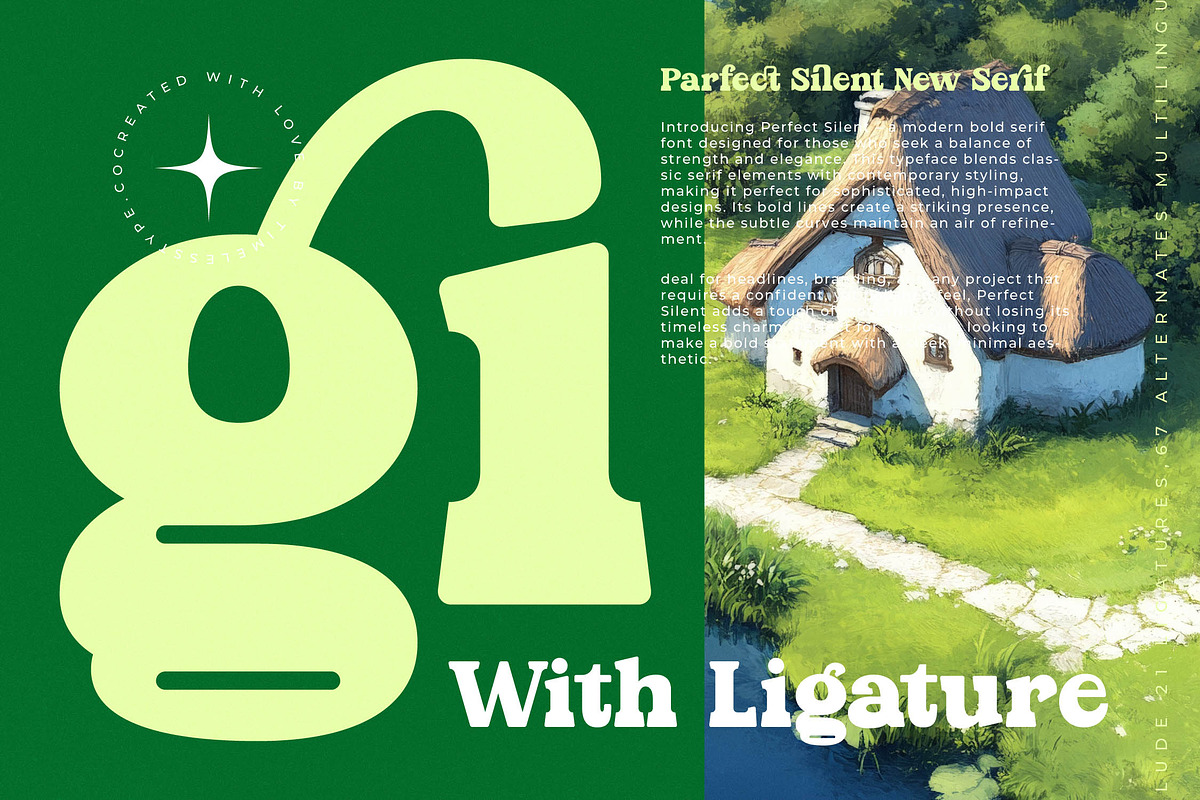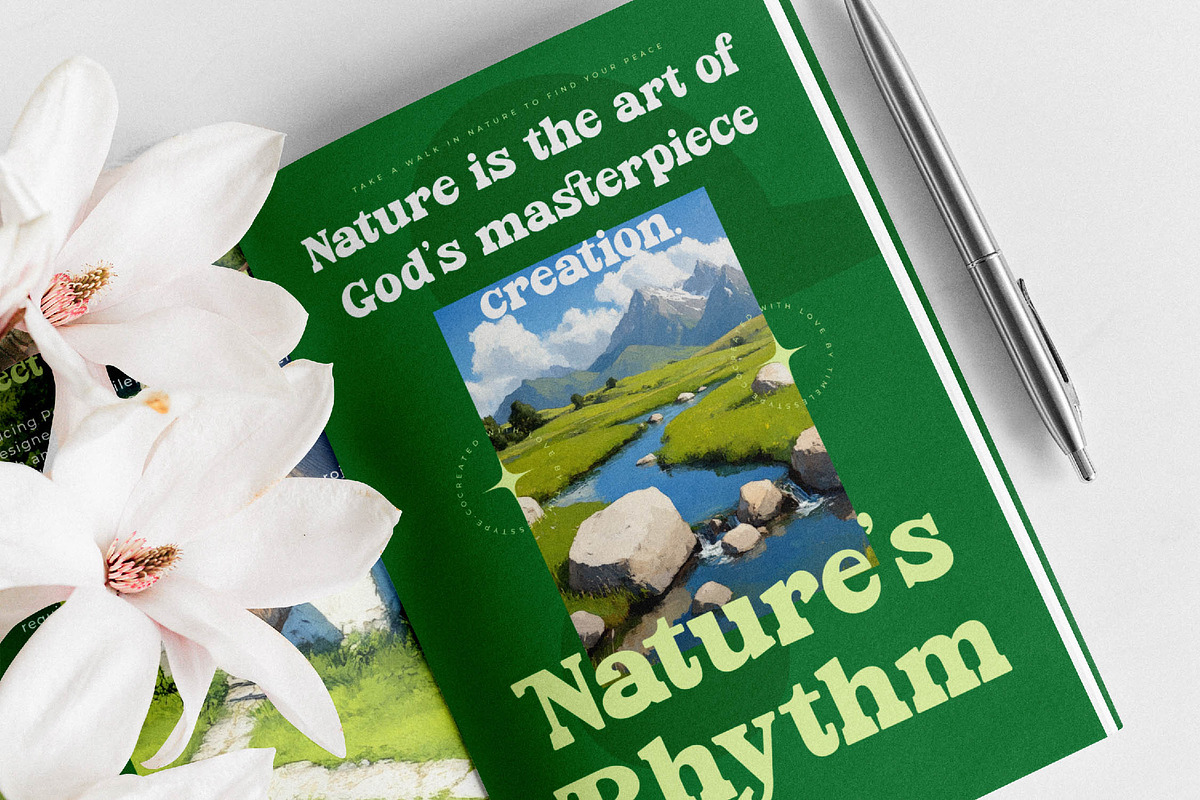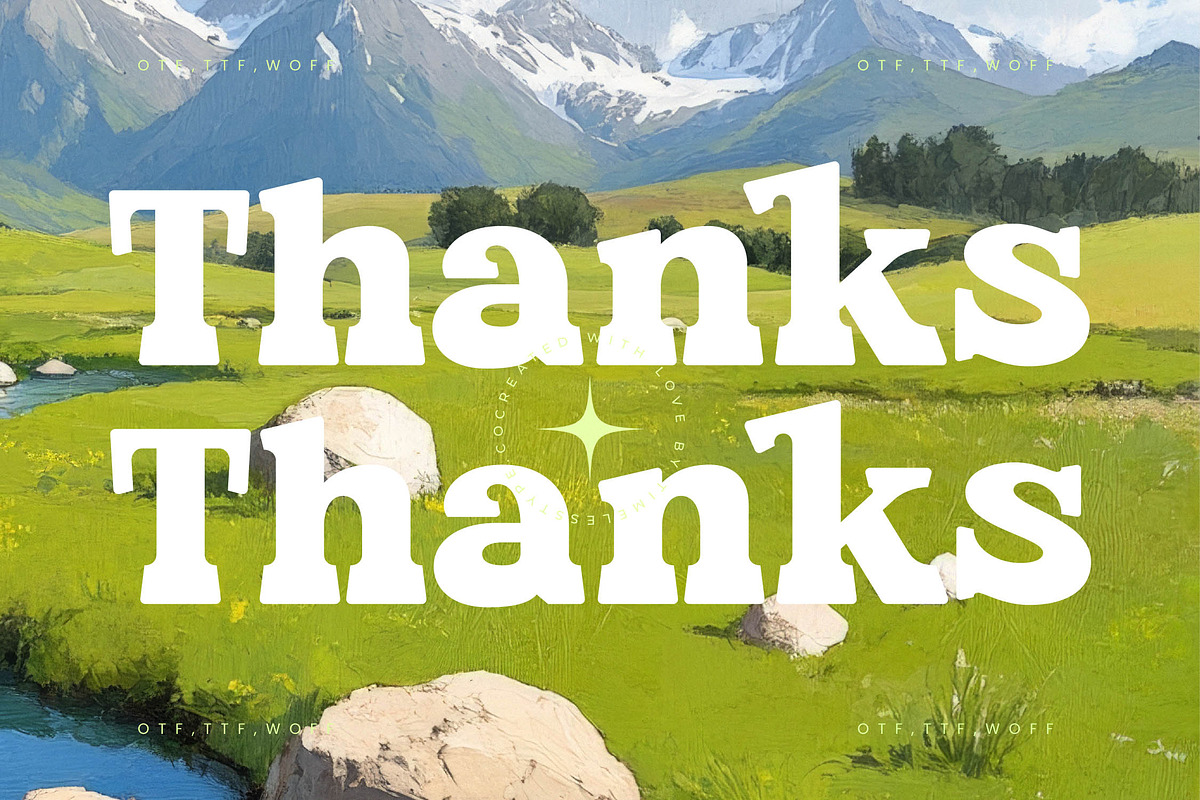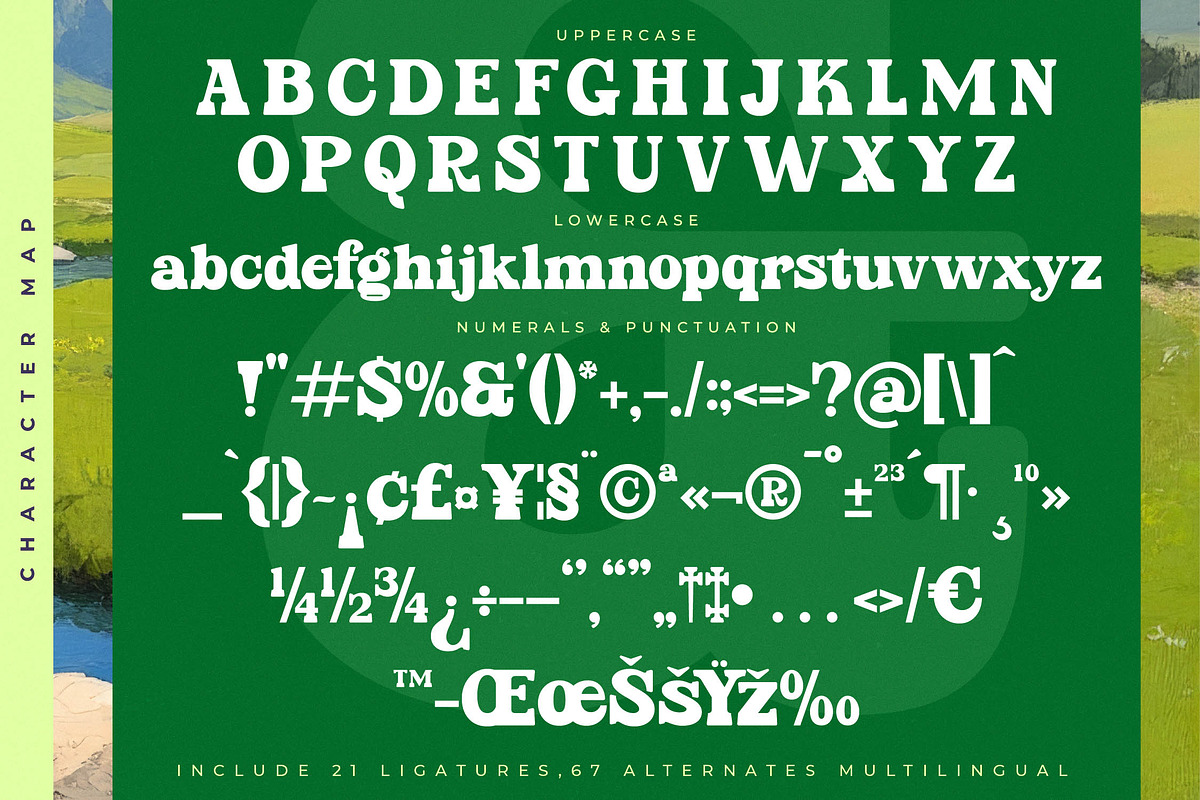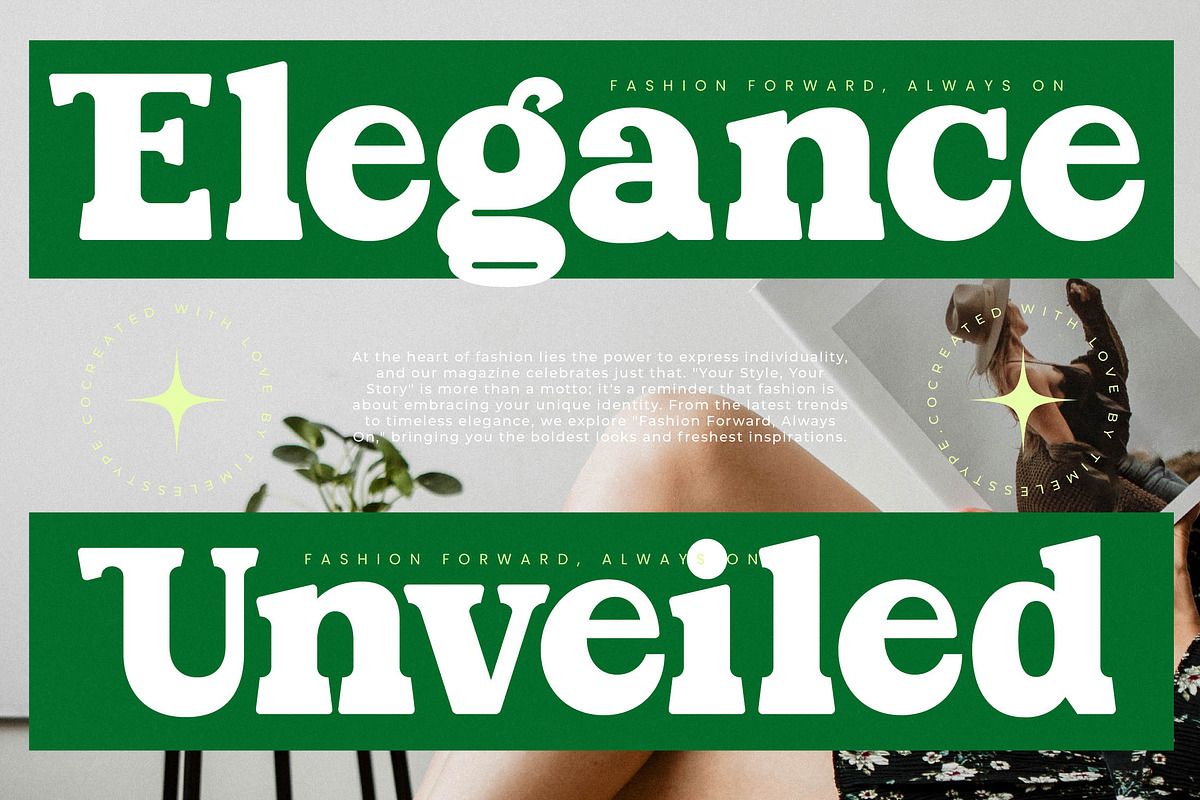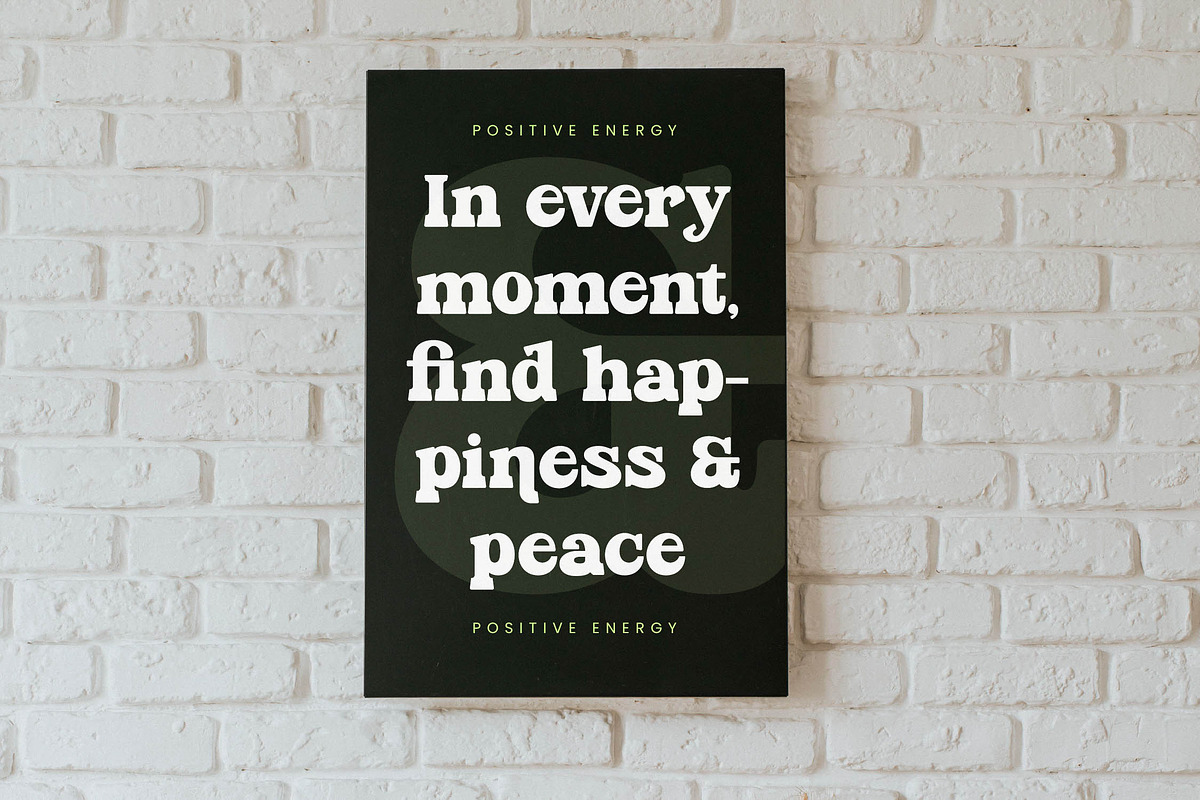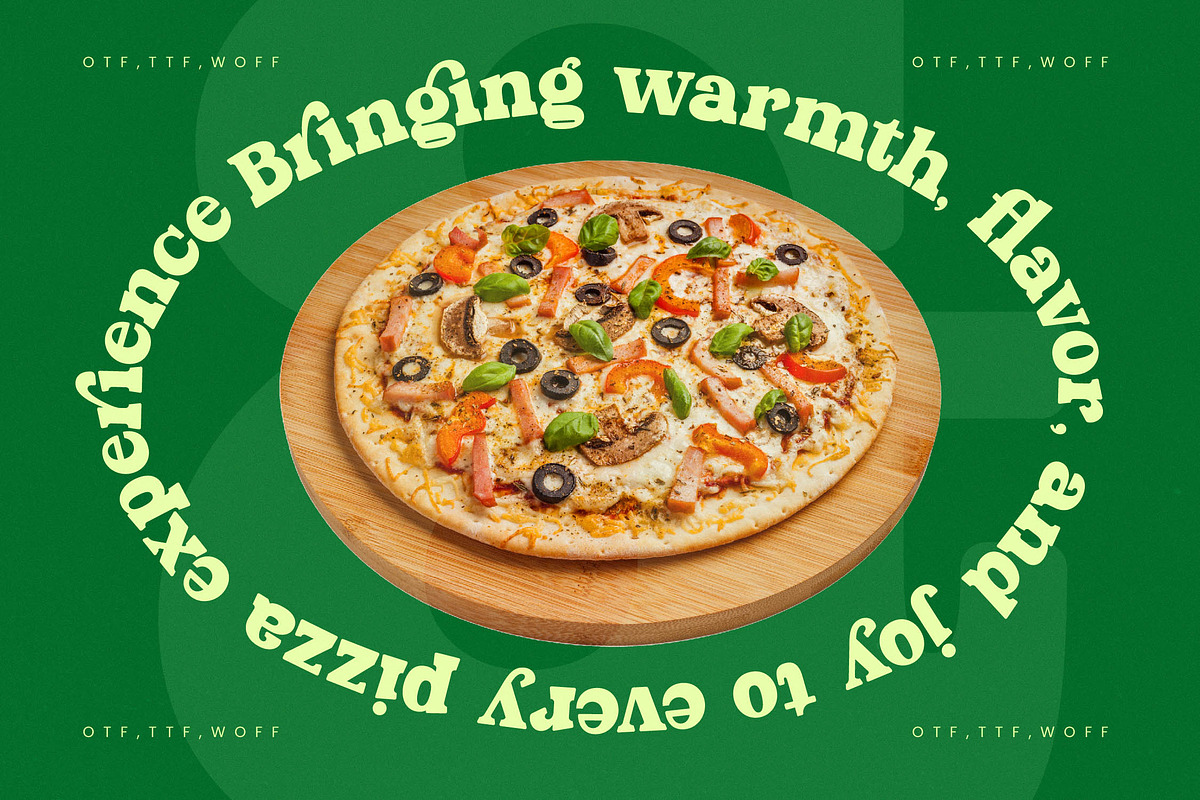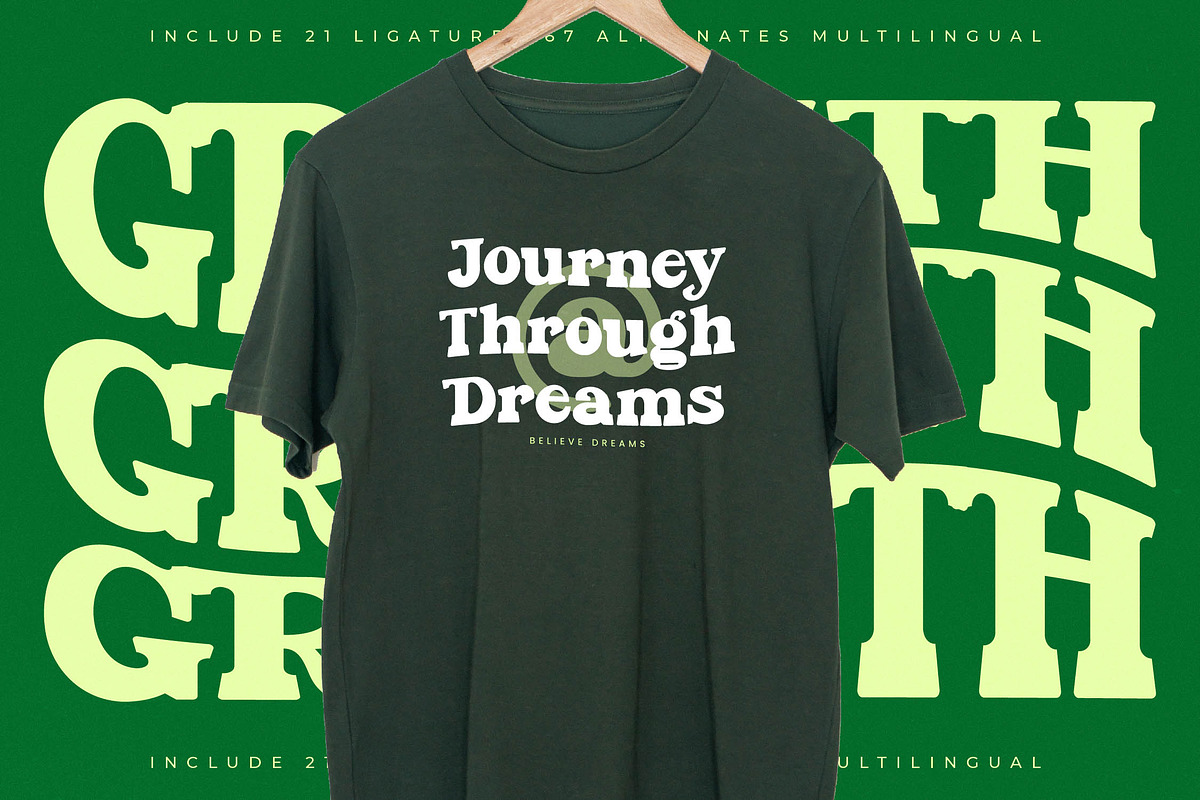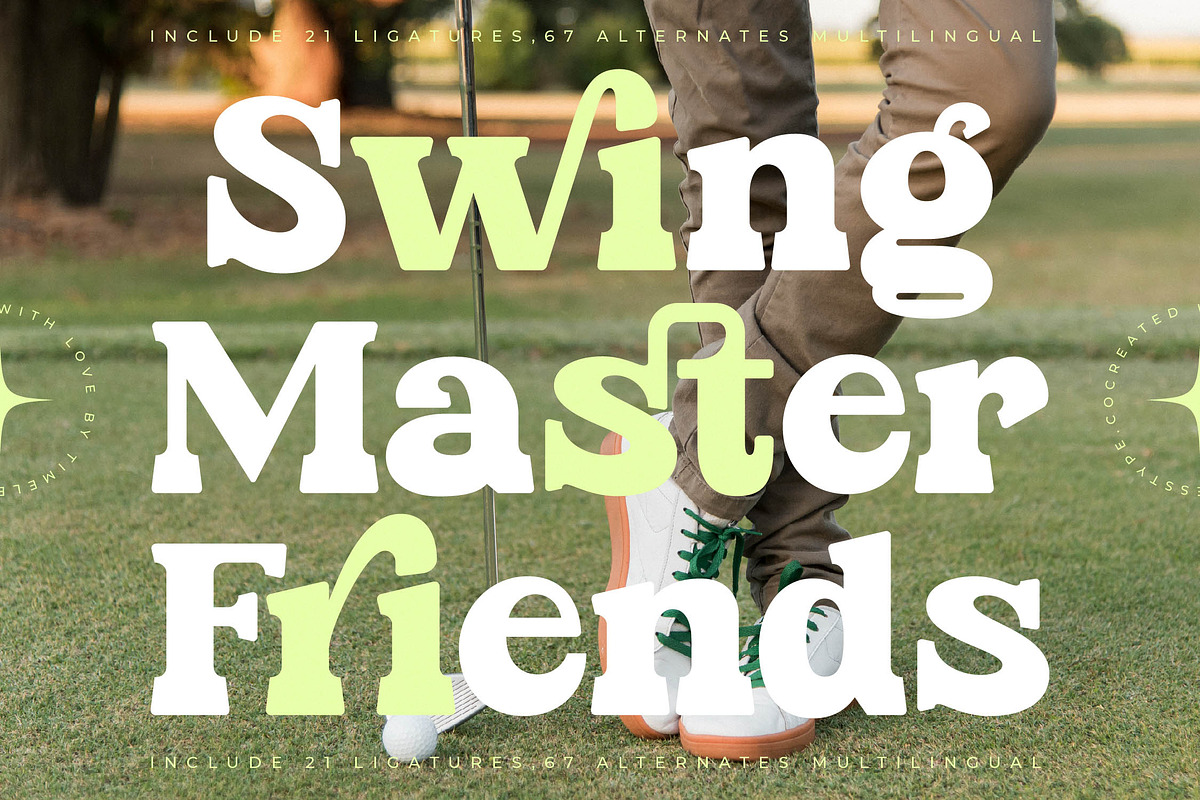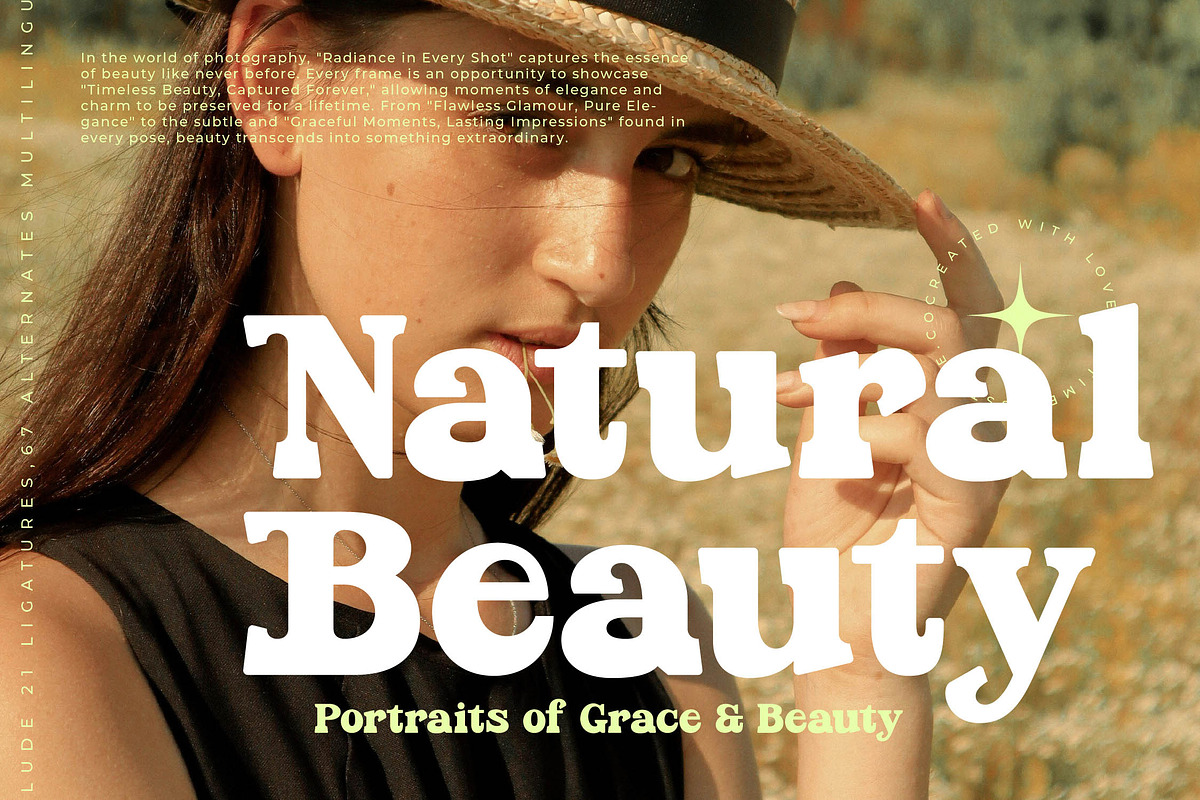
Parfect Silent Modern Bold Serif
Step into a world where visual silence speaks volumes with the striking presence of Parfect Silent. This typeface captures a unique balance between bold assertiveness and refined grace, making every word an editorial masterpiece.
Drawing inspiration from the serene power of alpine landscapes and the quiet strength of modern architecture, this font was crafted to evoke a sense of timelessness. It bridges the gap between traditional serif structures and the avant-garde spirit of contemporary design.
The personality of this typeface is defined by its modern serif display qualities and luxury typography appeal, ensuring your message is delivered with maximum branding impact. Its high-contrast serif strokes provide a rhythmic flow that transforms standard text into an evocative editorial font suitable for high-end narratives.
Aligned perfectly with the current modern serif trend, this typeface is designed for creators who demand character-driven typography that stands out in a crowded market. It meets the rising demand for editorial display fonts that offer both nostalgia and a forward-thinking aesthetic.
This versatile tool is the ultimate choice for high-impact logo design and comprehensive branding projects that require a touch of sophistication. From high-fashion editorial layouts and luxury packaging to bespoke wedding invitations and fashion brand identities, it delivers unparalleled elegance.
To ensure complete creative freedom, the package includes a rich set of ligatures and unique alternates that allow for custom letter combinations. Furthermore, the extensive multilingual support and international characters make it a truly global solution for designers everywhere.
- Ligature 21 Alternate 67